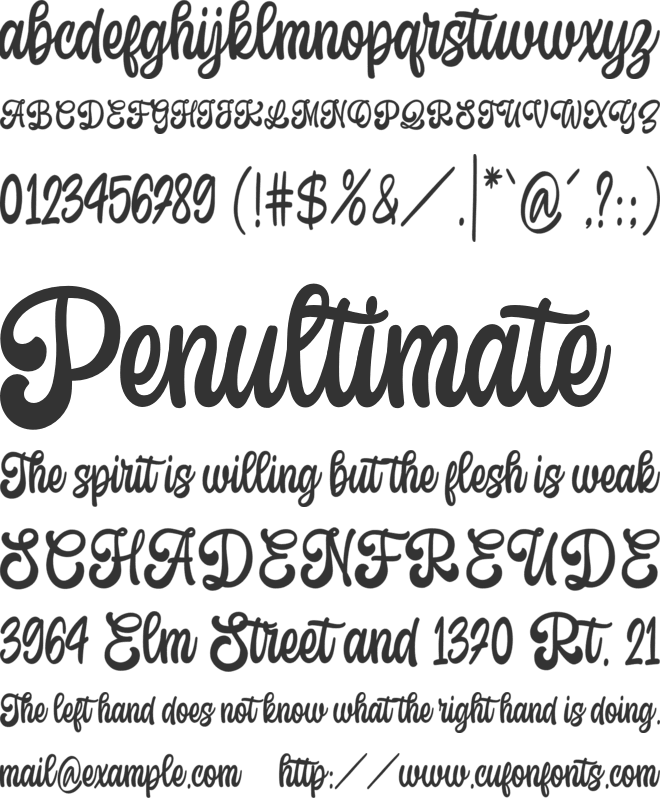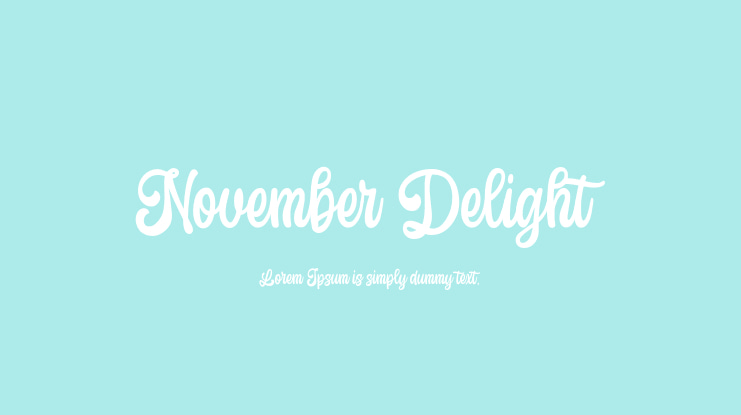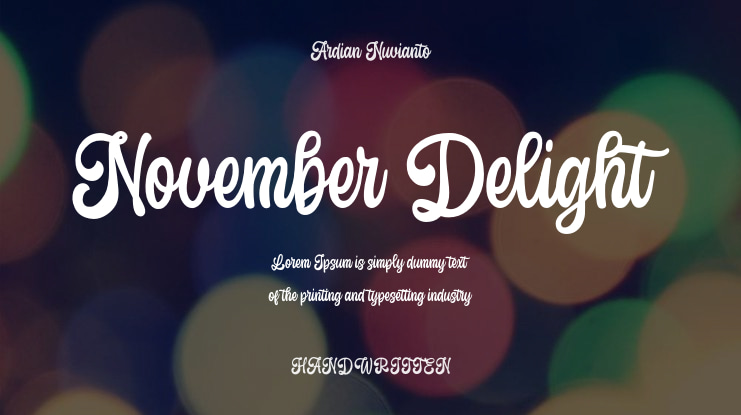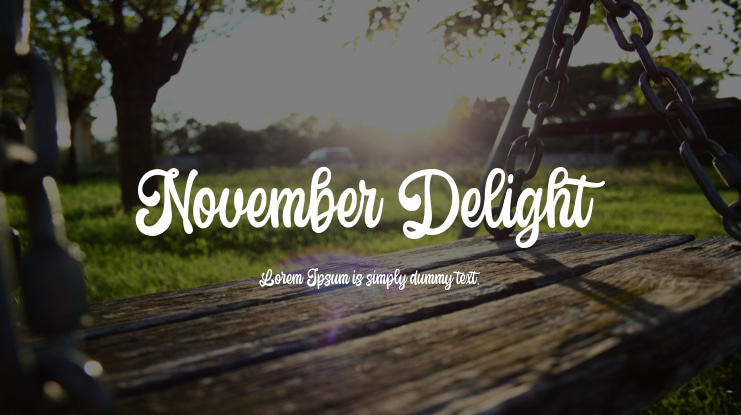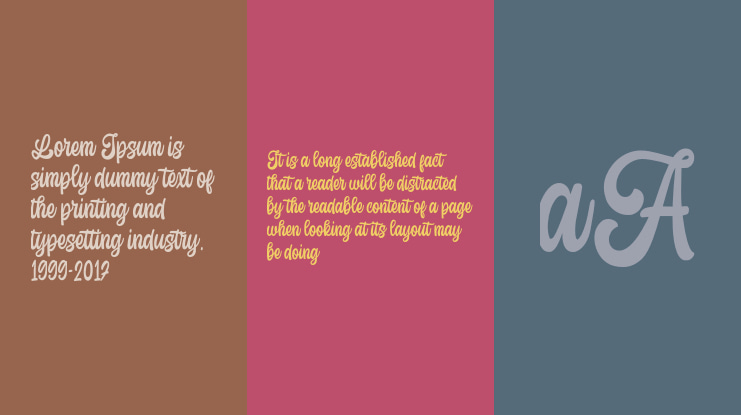
November Delight Font
November Delight is a flowing script typeface that embodies elegance and charm. Featuring smooth, graceful curves and beautifully crafted letterforms, this font is ideal for designs aiming to convey warmth, creativity, and a hint of romance. Whether it's used for invitations, branding, or editorial design, November Delight adds a personal and stylish touch to any project.